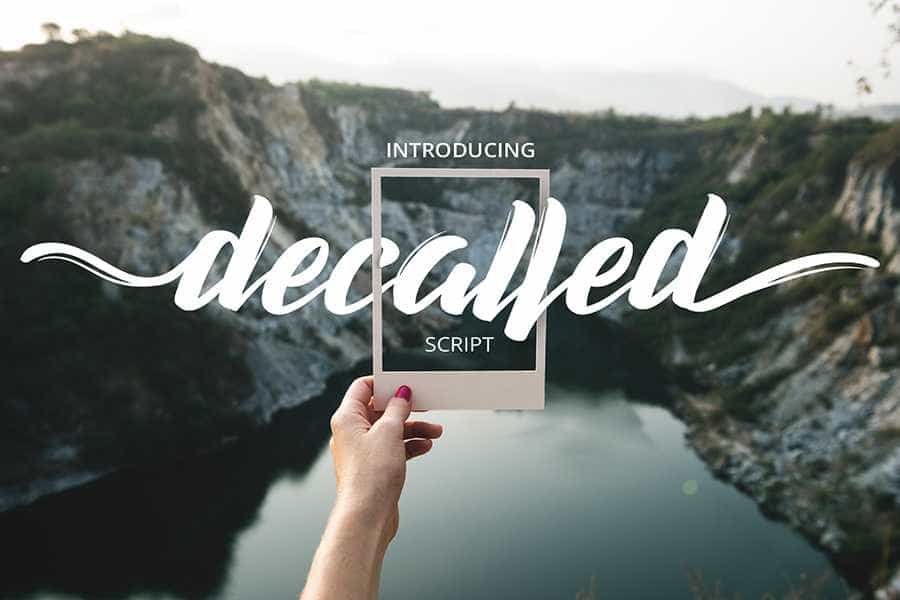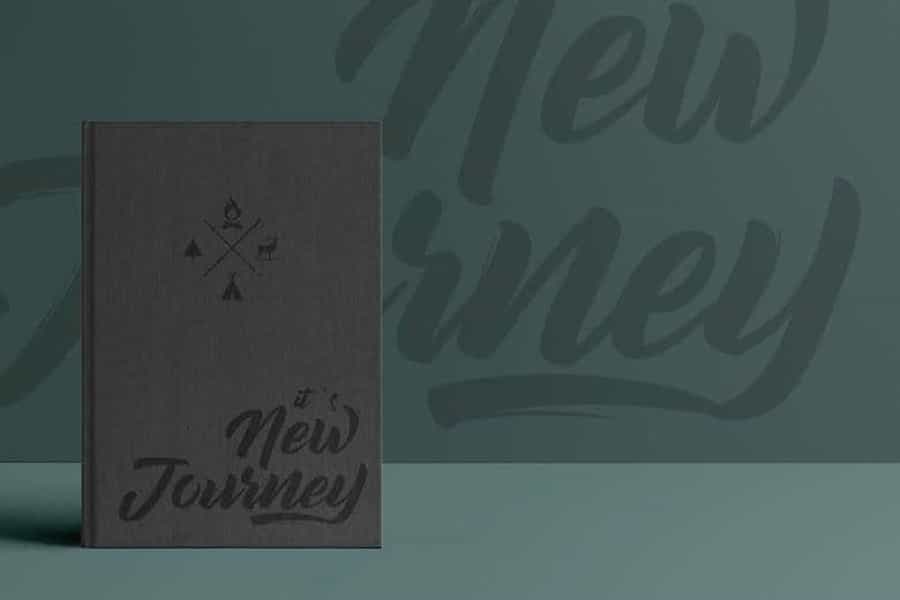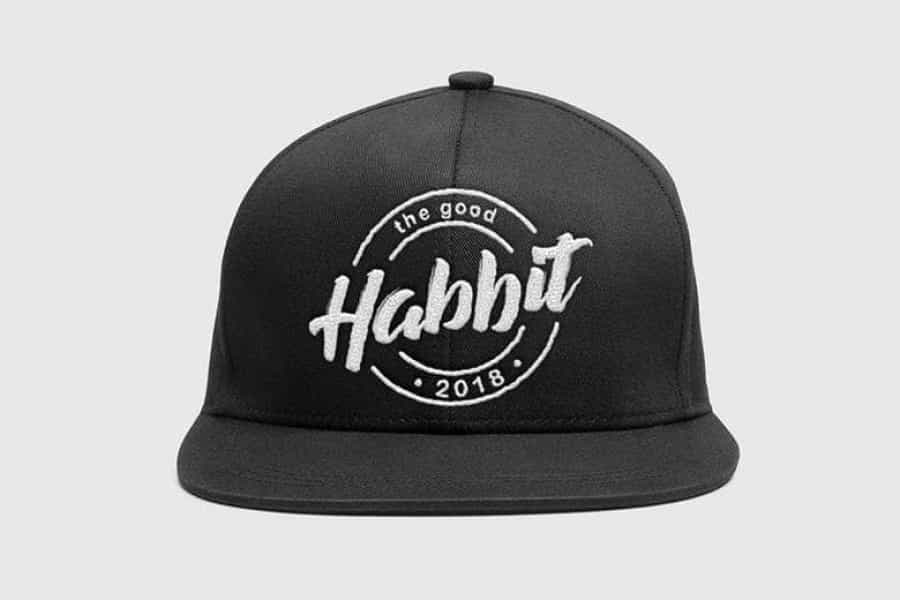
Introducing Decalled Font. Decalled is perfect font script that is sharp and elegant in its look. It is designed in opentype feature, characters in both upper and lower cases, standard character, punctuation, and numerical figures, multilingual characters, ligatures, stylistic alternates, swash, and many more glyphs. Ideal for your business, home, office, and any other use you may need like a logo, branding, posters, flyers, greetings, invitations, books, quotes, and much more.